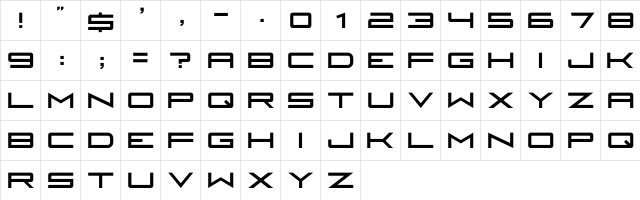
Fireye GF 3 Headline Regular
| Foundry | Grayfire Fonts |
| Designer | John Litwinowicz |
Design Context for Fireye GF 3 Headline Typeface
Fireye GF 3 Headline takes a measured approach to typography — its balanced proportions and neutral character make it a reliable workhorse for both digital and print work.